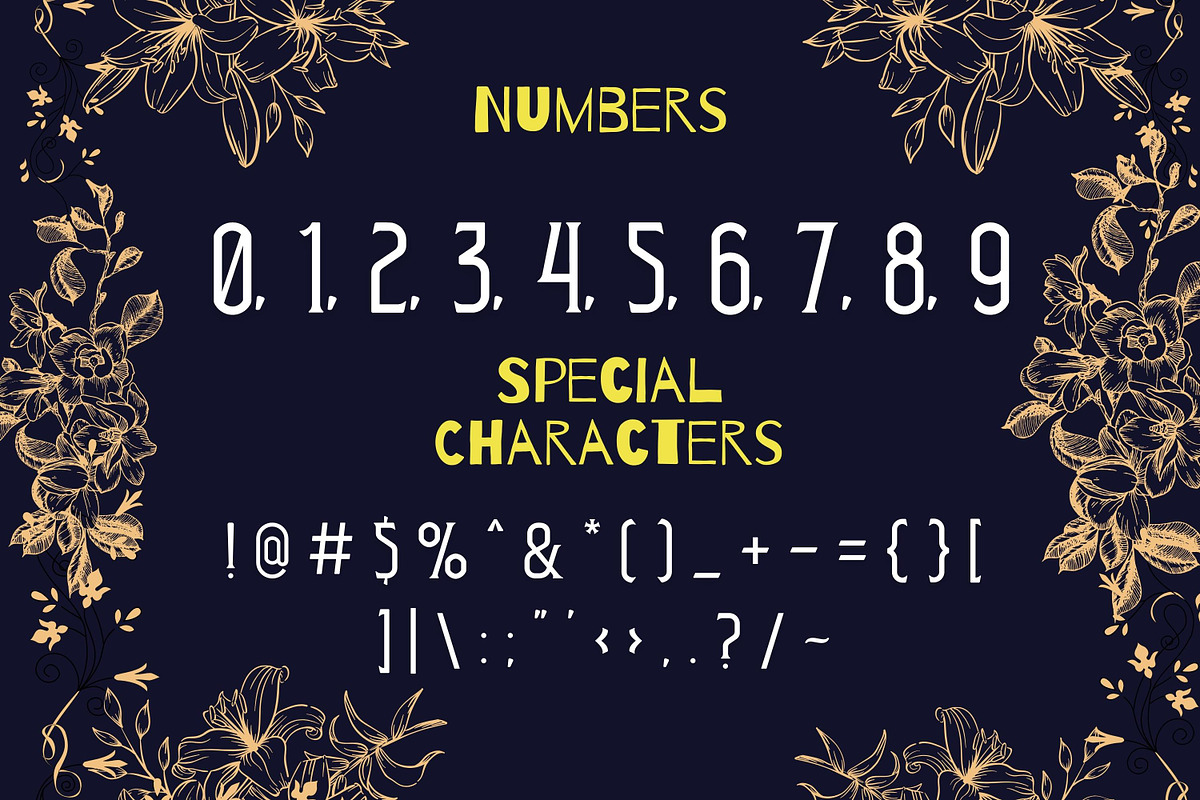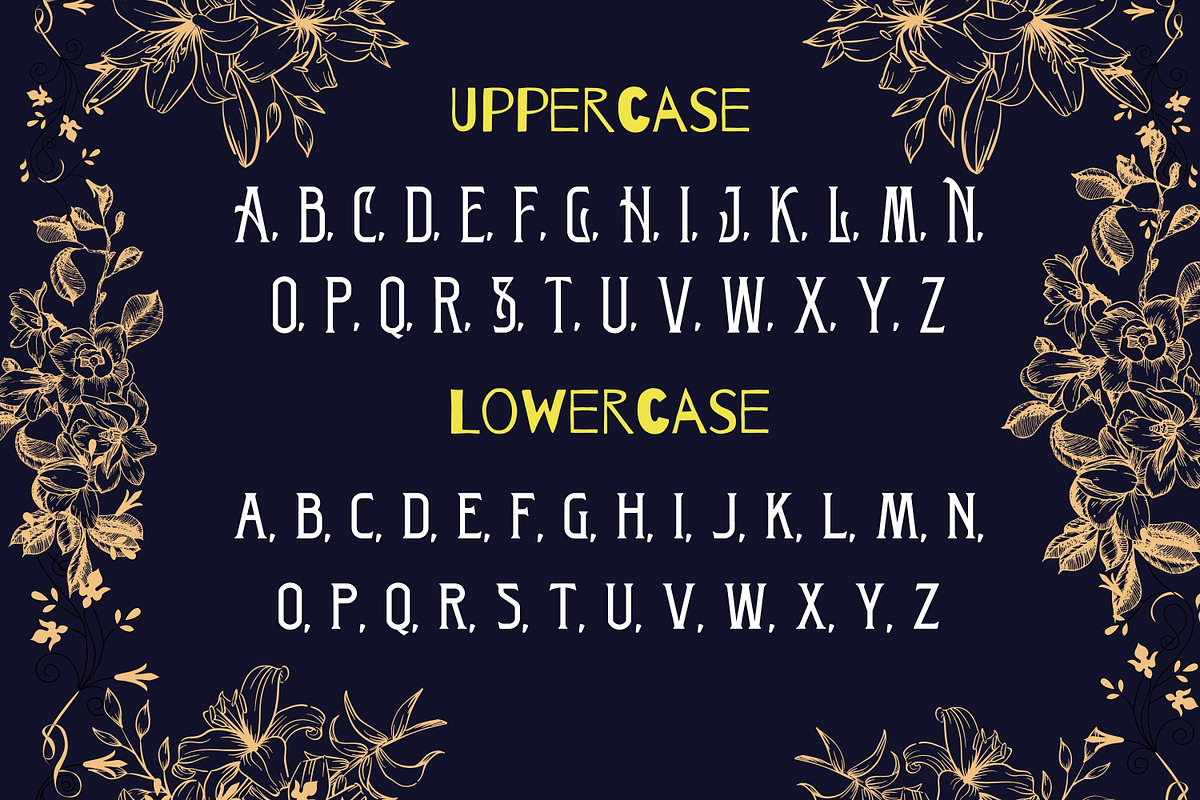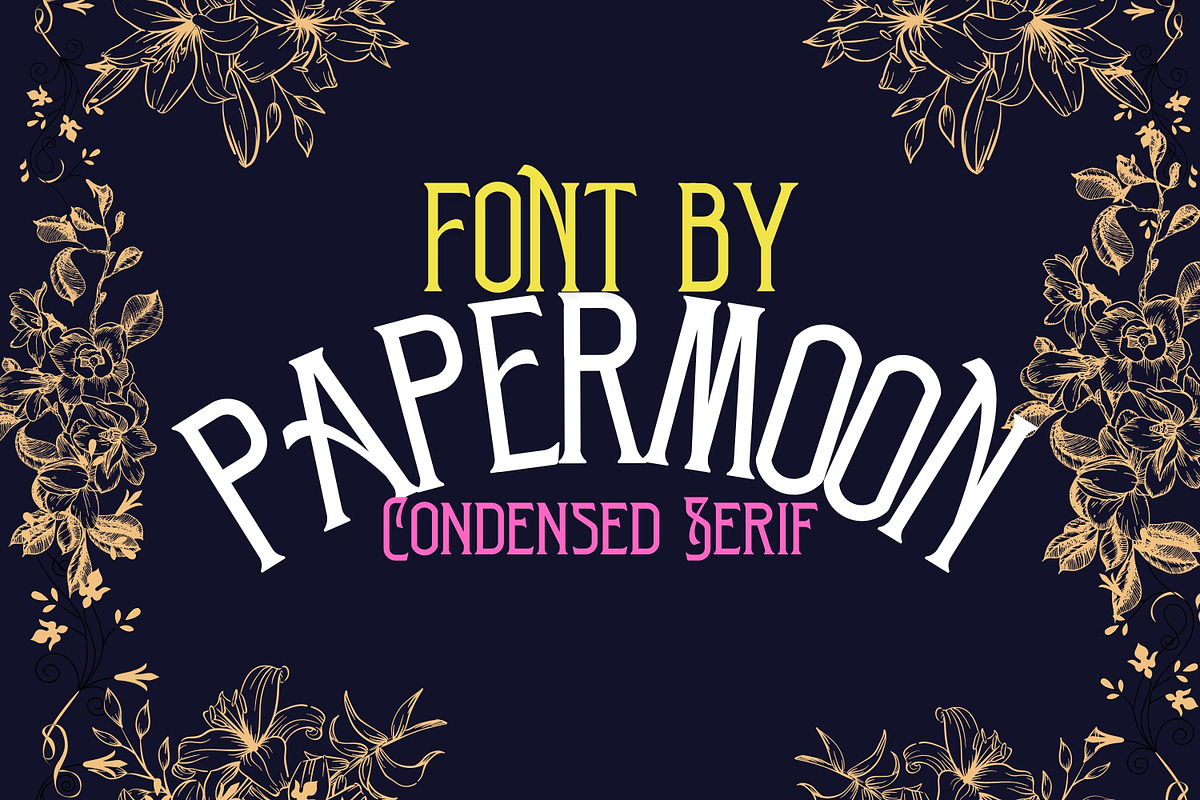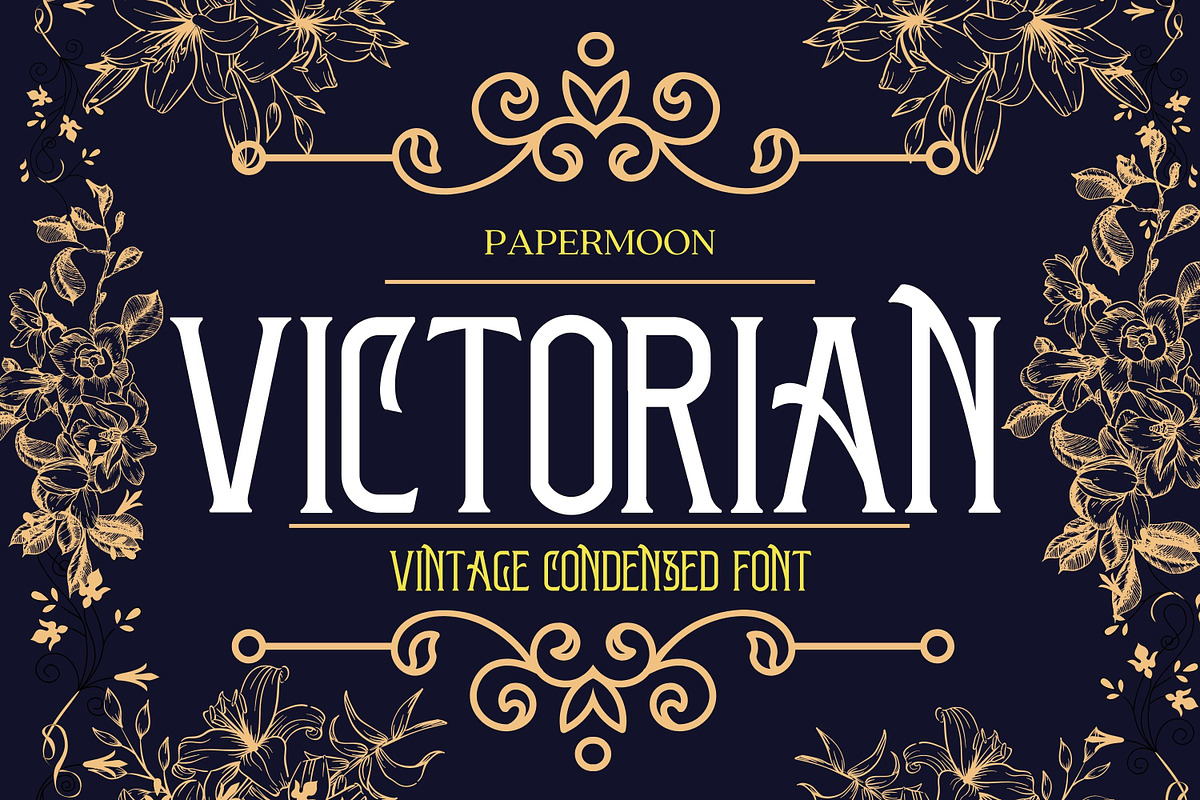
Victorian - Vintage Display Font
Presenting "Victorian Voyageur" - A Typeface Steeped in 19th-Century Elegance!
Drawing inspiration from the opulent luggage labels of the Victorian era, we introduce "Victorian Voyageur," a typographic journey back in time. This typeface exudes the charm and sophistication of the 1800s, with a versatile balance of thick and thin strokes and a condensed serif style that proudly flaunts all-caps elegance.
But that's not all! "Victorian Voyageur" comes with OpenType features that offer an array of stylistic alternate characters, making your typography compositions stand out with a unique and captivating personality.
Uppercase & Lowercase: Embrace the power of both uppercase and lowercase letters for a versatile design palette.
Numerals & Punctuation: Numbers and punctuation marks are meticulously crafted to complement the overall aesthetic.
Alternates: Unlock a treasure trove of alternate characters to add depth and uniqueness to your designs.
Multilanguage Support: Seamlessly integrate text in over 60 Latin-based languages for a truly global appeal.
This typeface is perfectly suited for various display needs, including signage that evokes the grandeur of the past, posters that command attention, logos that speak of timeless sophistication, labels that exude vintage charm, headlines that captivate, and cover designs that transport readers to a bygone era.